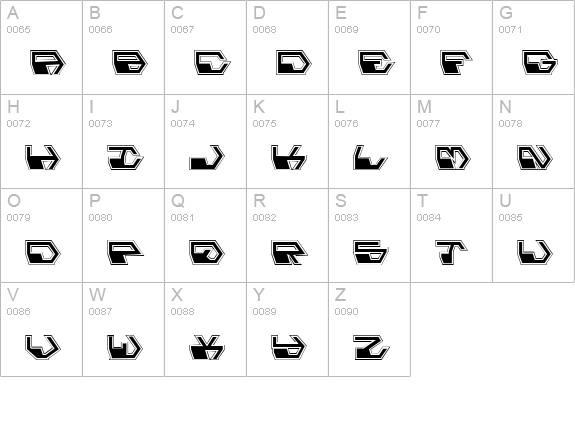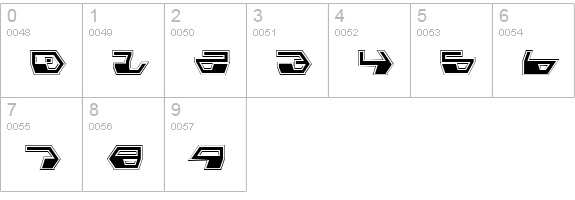
Deranian Pro font is a modern and stylish typeface that exudes elegance and sophistication. With its sleek lines and contemporary design, this font is perfect for a wide range of design projects, from branding to editorial design. The clean and sharp letterforms make it easy to read while still maintaining a sense of uniqueness. What sets Deranian Pro font apart is not only its stunning aesthetic appeal but also its versatility. Whether you are looking to create a sleek and professional look or a more playful and creative design, this font has you covered. Its wide range of weights and styles allows you to experiment and customize your designs to suit your needs. And the best part? Deranian Pro font is completely free to download at FontsMarket.com. So why wait? Add this stunning font to your collection today and take your designs to the next level.